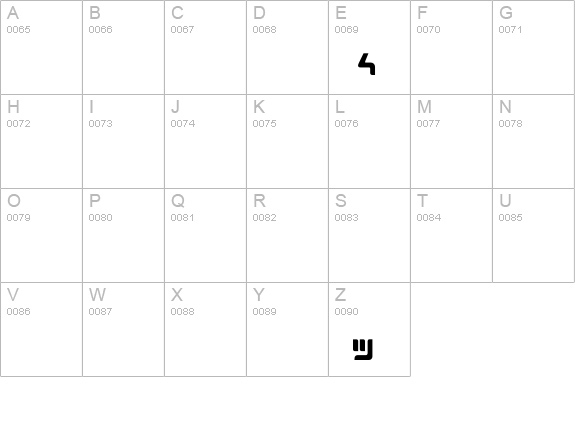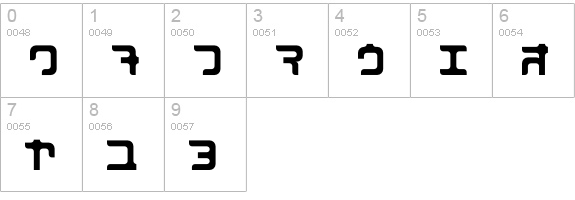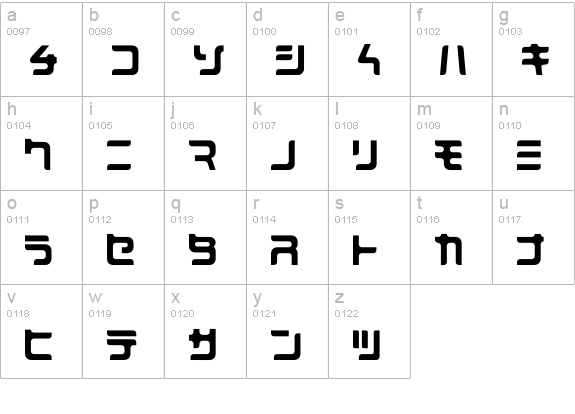
MarkingMarker-KANA Font Details
Introducing MarkingMarker-KANA font, a stunning and versatile typeface designed to make your creative projects stand out. With its unique and eye-catching design, this font is sure to leave a lasting impression on any audience. Featuring a perfect blend of modern and edgy elements, MarkingMarker-KANA font offers a wide range of characters with distinct strokes and bold lines. Whether you're designing a logo, poster, website, or any other visual project, this font will effortlessly add a touch of sophistication and originality. One of the greatest advantages of MarkingMarker-KANA font is that it is completely free. Yes, you read that right! This amazing font is freely available to download at FontsMarket.com. Say goodbye to spending a fortune on premium fonts, as MarkingMarker-KANA font offers you the opportunity to enhance your designs without breaking the bank. With its easy-to-read characters and seamless integration into any design software, MarkingMarker-KANA font is perfect for both beginners and experienced designers alike. Its versatility allows you to use it for various purposes, from branding and advertising to social media graphics and beyond. Don't miss out on the opportunity to elevate your design projects with the captivating MarkingMarker-KANA font. Download it for free today at FontsMarket.com and let your creativity soar to new heights.